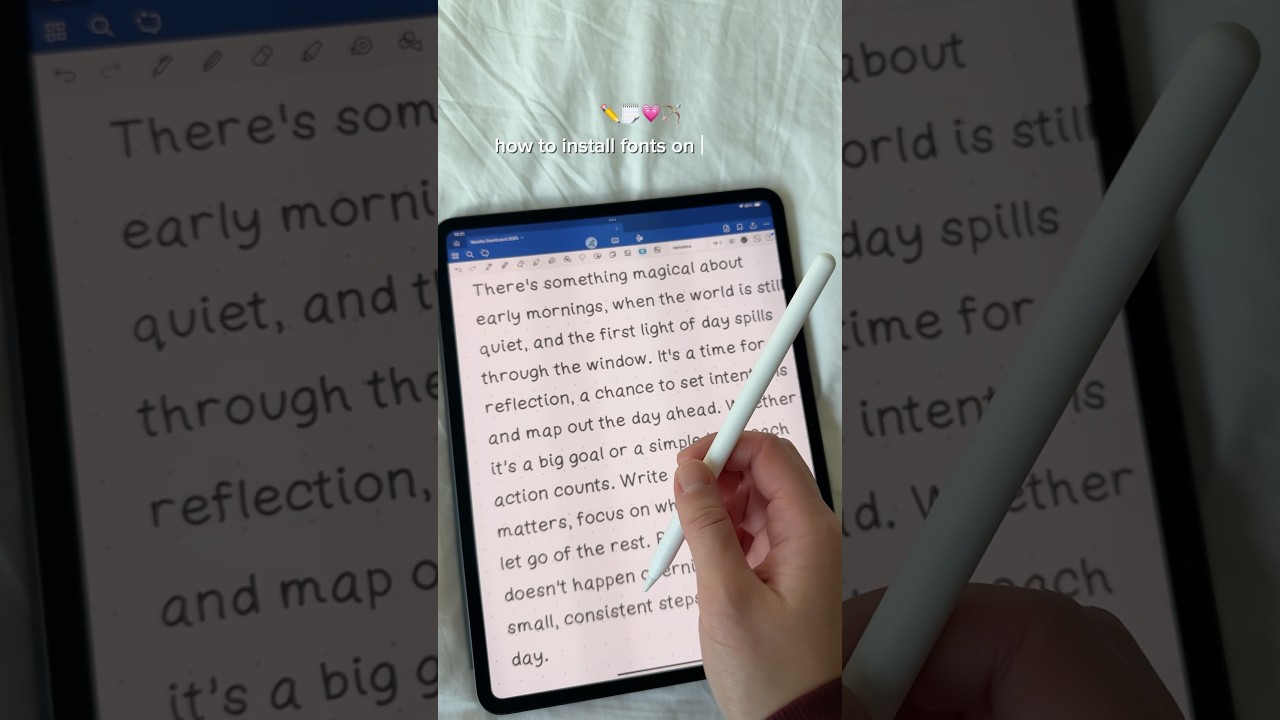
Cute Handwritten Font Digital Notes Goodnotes Font Procreate Font
Cute Handwritten Font Digital Notes Goodnotes Font Procreate Font Discover free goodnotes handwritten fonts to elevate your note taking experience. add a personal touch with unique, stylish fonts for every mood and style. Discover our curated collection of handwriting fonts designed for goodnotes. enhance your digital notes with beautiful, legible fonts that bring your content to life. ideal for planners, journals, and more.
Cute Handwritten Font Digital Notes Goodnotes Font Procreate Font Explore the best handwriting fonts for goodnotes. perfect for journaling, planning, and making your notes look naturally handwritten. Looking for the best fonts for goodnotes? you can find good looking handwritten fonts from google fonts and dafonts. both have the option to filter by style. make sure you check the license before using a free font. a lot of free font creators only allow you to use their font for personal use. Cute handwritten font, digital notes, goodnotes font, procreate font, cricut font, cute handwriting font, instant .otf font, sans font this font is perfect for procreate, stickers, shirts, decor, signs, branding, logos and more!. Find and save ideas about goodnotes handwriting fonts free on pinterest.
Cute Handwritten Font Digital Notes Goodnotes Font Procreate Font Cute handwritten font, digital notes, goodnotes font, procreate font, cricut font, cute handwriting font, instant .otf font, sans font this font is perfect for procreate, stickers, shirts, decor, signs, branding, logos and more!. Find and save ideas about goodnotes handwriting fonts free on pinterest. Looking for handwriting notes fonts? click to find the best 299 free fonts in the handwriting notes style. every font is free to download!. Explore 9 handwriting fonts that make digital notes stylish, neat, and readable—perfect for journaling, school, or creative writing. Say hello to daily notes, a lovely and playful handwriting font designed for note taking and creative projects. with its soft, bubbly strokes, this font brings a fun and cozy touch to school notes, student planners, digital journals, goodnotes, procreate, canva, and craft projects. Transform your digital notes, planners, and creative projects with this all in one handwriting fonts bundle. packed with 160 carefully crafted handwritten fonts, this collection delivers clean, cute, and consistently neat styles that instantly elevate your layouts.